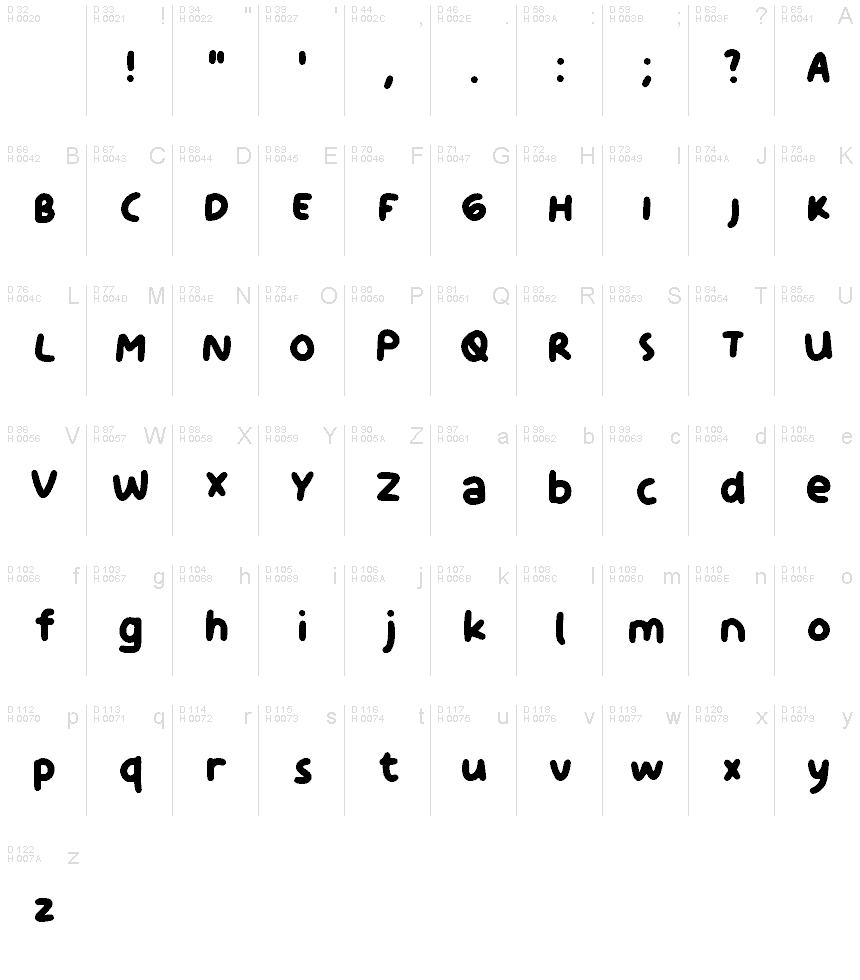
Ddrael Regular
Ddrael font is a free handwritten font designed by Dunee. With a rounded, casual, and approachable style, this font exudes a friendly and informal charm. Its design is reminiscent of mid-century advertising aesthetics, providing a warm and accessible feel that resonates well with audiences seeking an inviting visual experience.
The uses of Ddrael are numerous due to its contemporary appeal. It greatly fits branding for casual dining establishments or children's products, creating relaxed and welcoming identities. Other uses can include all sort of headings or slogans for labels, stickers, vouchers, ads among others. Take advantage of it when creating social media posts for kids’ profiles where cards or invitations can be on your list as well!